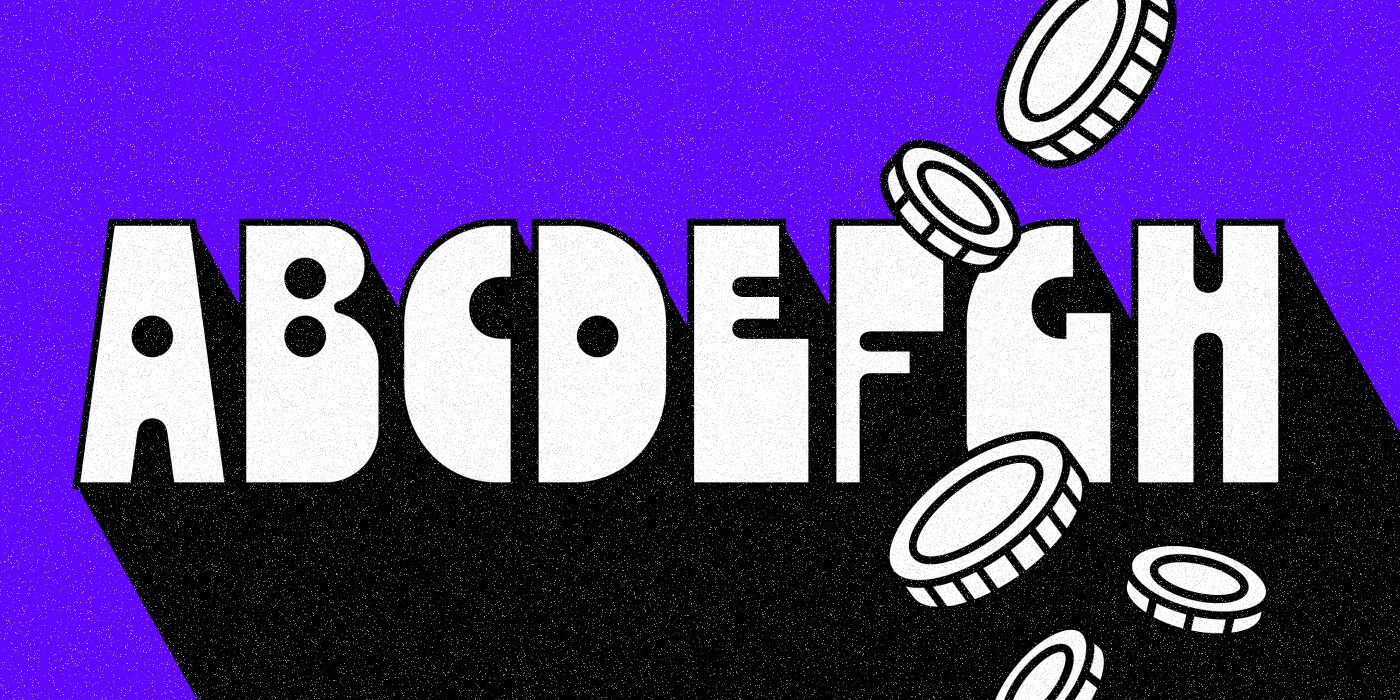
In one of our previous posts, we listed our favorite type foundries offering open-source fonts, highlighting creators that offer free fonts for personal and commercial use. However, there are times when a personal project or a small client requires a specific solution that only a commercial license can provide. Buying a typeface doesn’t always have to break the bank; sometimes it’s about finding foundries that understand the reality of independent creators.
It is vital to support type foundries that adapt to the diverse economies of the world. By offering accessible price points, these foundries allow designers to work within their personal budgets while still accessing high-quality products. These resources are a valuable investment, capable of improving your projects and providing clients with a conceptual consistency that can be missing in some open-source options.
Here’s our personal list of accessible type foundries where you can purchase typefaces and fonts for a small price. Enjoy!
Based in Spain, Atipo has mastered the “pay-what-you-want” and affordable pricing model without ever sacrificing quality. Their library consists of incredibly polished and versatile typefaces that work just as well in editorial design as they do in digital interfaces. Many of their options allow you to purchase the entire family for a very modest contribution, often starting as low as €15 to €30. Explore their versatile collection here.
Led by Alexander Wright and Michelle Benaim Steiner, In-House International is a creative studio that treats type design as an exercise in experimental geometry and bold storytelling. Their library blends high-concept aesthetics with practical utility. We have had the pleasure of featuring their work before in our blog, when discussing the launch of Locha and the playful Zanco family. Their licensing is remarkably friendly to independent designers, with most of their fonts costing around $10. Explore their imaginative fonts here.
Future Fonts is a unique platform where you can support type designers while their fonts are still in progress. The concept is simple: the earlier you buy, the less you pay. You can often snag beautifully crafted typefaces for $20 or $30. As the designer adds more weights and features, the price goes up, but your initial purchase gives you all future updates for free. Take a look at their evolving fonts here.
Based in Bogotá, Colombia, Bastarda Type is a design studio that bridges the gap between contemporary branding and deep typographic research. We’ve explored their impactful work before in our feature on the creation of Leyenda BT, which serves as the powerful typographic voice of Colombian soccer. Their library is incredibly versatile, offering both commercial fonts and high-quality free options (like their experimental variable font, Maíz) that are perfect for designers looking to add a unique, Latin American edge to their work. Many of their professional licenses are priced very accessibly, with several styles and families fitting well within a $50 budget. Take a look at their fonts here.
Founded by Australian designer Laura Eddy, Typeheist offers a collection of fonts that feel raw, organic, and full of character. From gritty hand-drawn scripts to clean, modern sans-serifs, her work is perfect for projects that need a human touch. Most of her full type families are priced incredibly competitively, often falling well under the $50 mark. Discover her unique typefaces here.
TDF is a curated powerhouse representing various independent designers from around the globe. While they host some high-end professional sets, a significant portion of their library—especially their single-weight display fonts and “mini” families—is priced for the independent creator. Their fonts are consistently at the forefront of design trends, offering a sharp, professional edge to any project. Check out their curated selection here.
Based in Germany, Tightype is an independent foundry that focuses on typefaces with a strong personality. Their work is often characterized by sharp angles and contemporary silhouettes. Many of their fonts are sold in individual weights or small families that fit perfectly within a $50 budget, giving you access to high-end German engineering for a very reasonable price. View their contemporary library here.
This Italian foundry offers an enormous range of typefaces, from massive “super-families” to quirky display fonts. While their full bundles can be pricey, Zetafonts frequently offers massive discounts or “starter” family packs that fall under $50. Their fonts are technically impeccable and usually include a wide array of language support. Explore their extensive catalog here.
Run by Simon Walker, a master of lettering, Beasts of England offers typefaces that feel like they have a soul. Each font is packed with character, often featuring beautiful ligatures and alternate characters that give them a custom-lettered feel. Despite the high level of craftsmanship, his fonts are remarkably affordable for individual designers. Take a look at their soulful fonts here.